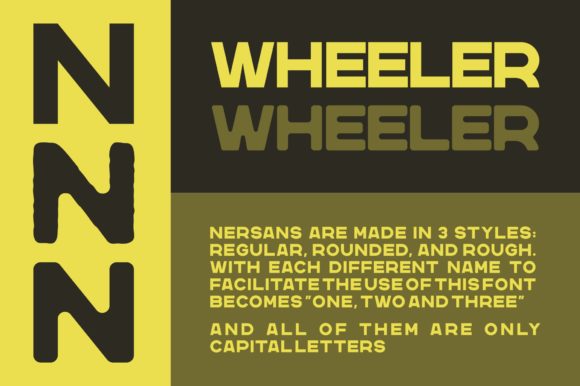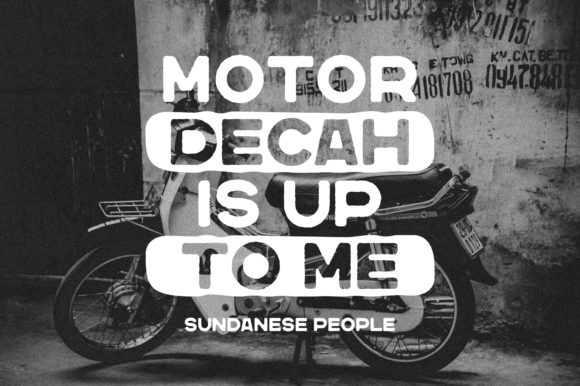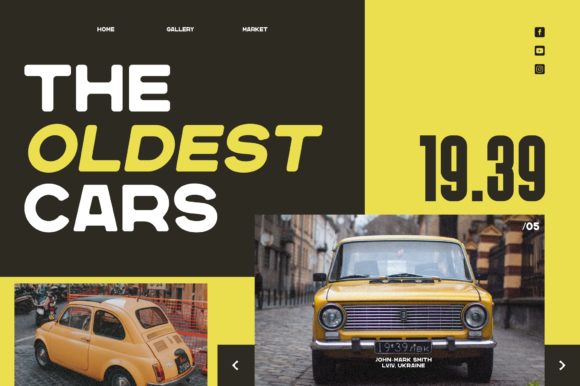
Introduction to Nersans Font
You’ve spent hours brainstorming ideas for your next creative project, pouring over design concepts and trying to capture the perfect mood. And then, it hits you – the perfect font to bring your vision to life. For designers, finding the right font can be the difference between a project that’s just okay, and one that truly stands out.
Enter the Nersans Font, a charming sans serif font that exudes a playfully nostalgic feel. With its unique blend of vintage and modern elements, this font is the perfect design resource for anyone looking to add a touch of retro charm to their work.
Whether you’re working on a design project with a transparent background or need a high-quality font for your next graphic design, the Nersans Font is a valuable addition to any designer’s toolkit. And the best part? It’s available for a free download, making it an accessible design resource for creatives of all levels.
Key Features of Nersans Font
- High-quality font suitable for creative projects and design resources, offering a unique and stylish look.
- Includes multiple font sizes and styles, including bold, italic, and regular, providing versatility for different design needs.
- Designed with a high resolution, making it suitable for both print and digital design applications.
Honest Review: Nersans Font
I recently came across the Nersans Font, and I must say it’s been a pleasant surprise. As a designer, I’m always on the lookout for high-quality design resources to elevate my creative projects. The Nersans Font is a great addition to my toolkit.
- ✨ Beautiful, modern design: The Nersans Font has a sleek and sophisticated look that’s perfect for contemporary projects.
- ✨ Wide range of uses: This font is versatile and can be used for a variety of applications, from branding to digital interfaces.
- ✨ Transparent background: This feature makes it easy to use the font on any background, giving designers more creative freedom.
- ⚠️ Limited font weights: While the Nersans Font is well-designed, it’s limited to a few font weights, which may not be suitable for projects that require a wide range of styles.
- ⚠️ Not suitable for small text: The font may not be the best choice for small text, as the lines can become blurry and difficult to read.
Overall, I’m impressed with the Nersans Font, and I think it’s a great addition to any designer’s toolkit. While it has some limitations, its high quality and versatility make it a valuable resource for creative projects.
Tips for Getting the Most Out of Nersans Font
To get the most out of the Nersans Font, experiment with different font sizes, colors, and styles. Combine the font with other design elements to create a unique and eye-catching look. Use the font to create headings, titles, or body text, depending on the needs of your project.
The Nersans Font is ideal for a variety of creative projects, including logos, brochures, business cards, and social media graphics. Its high-quality design and transparent background make it a versatile design resource for any project.